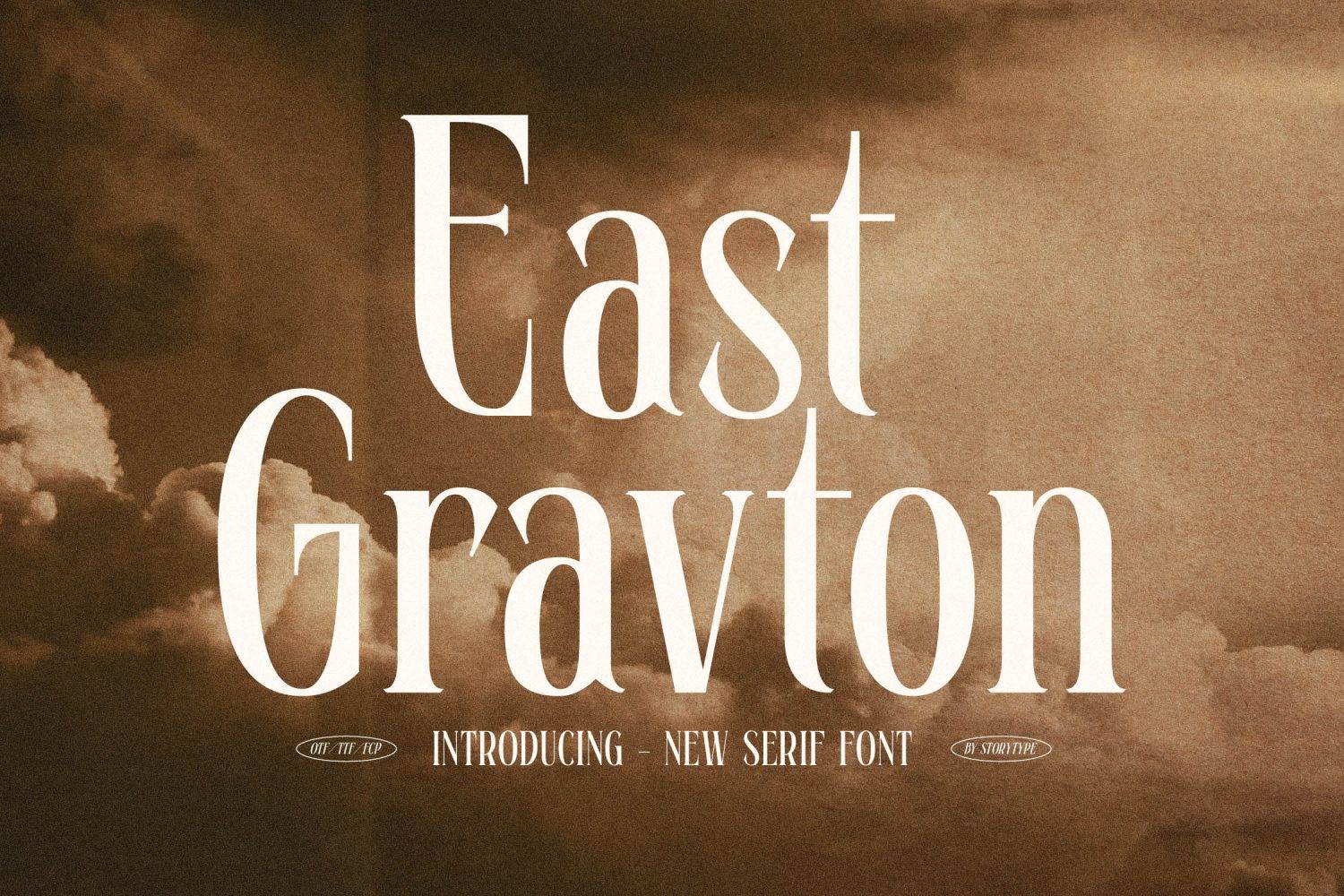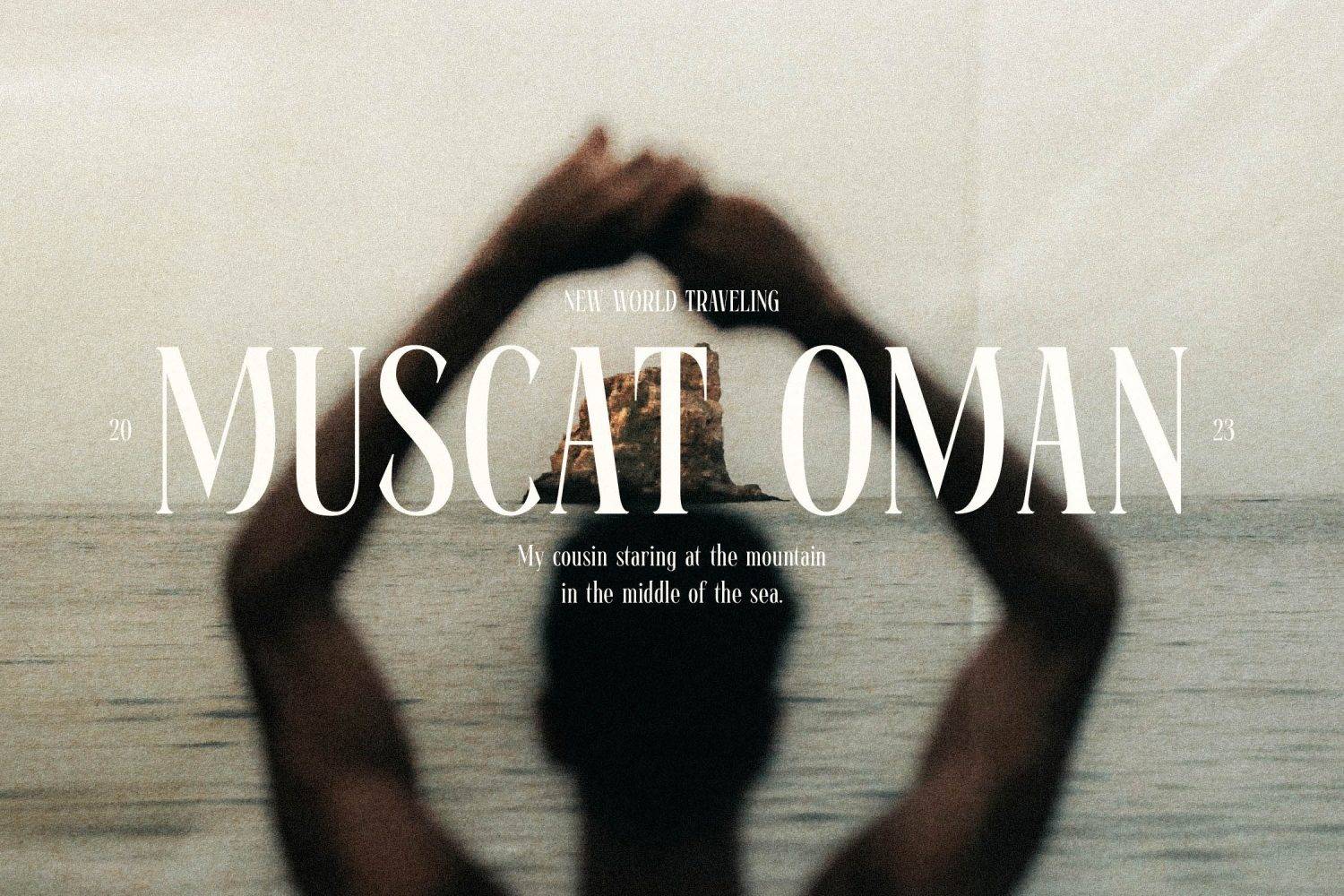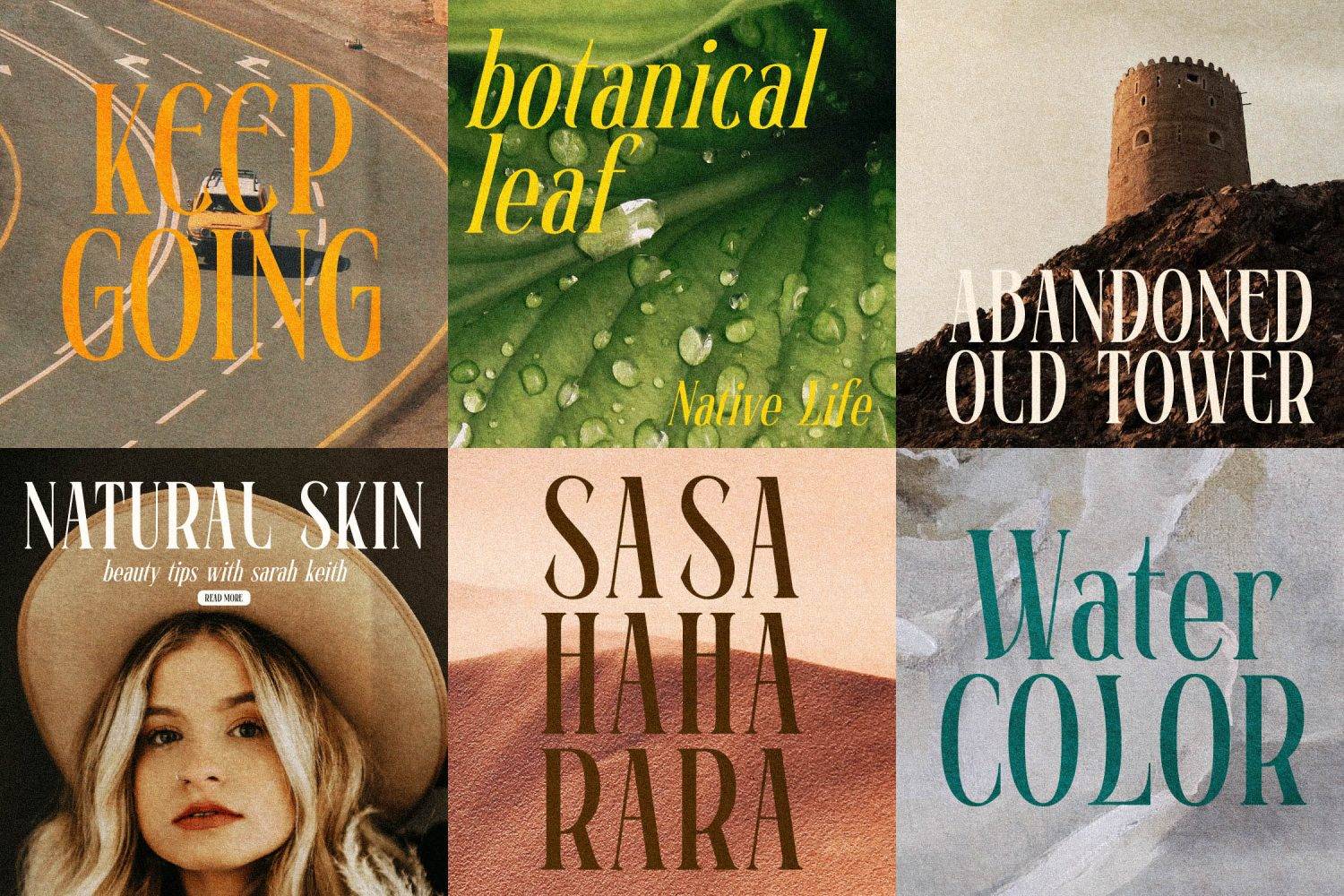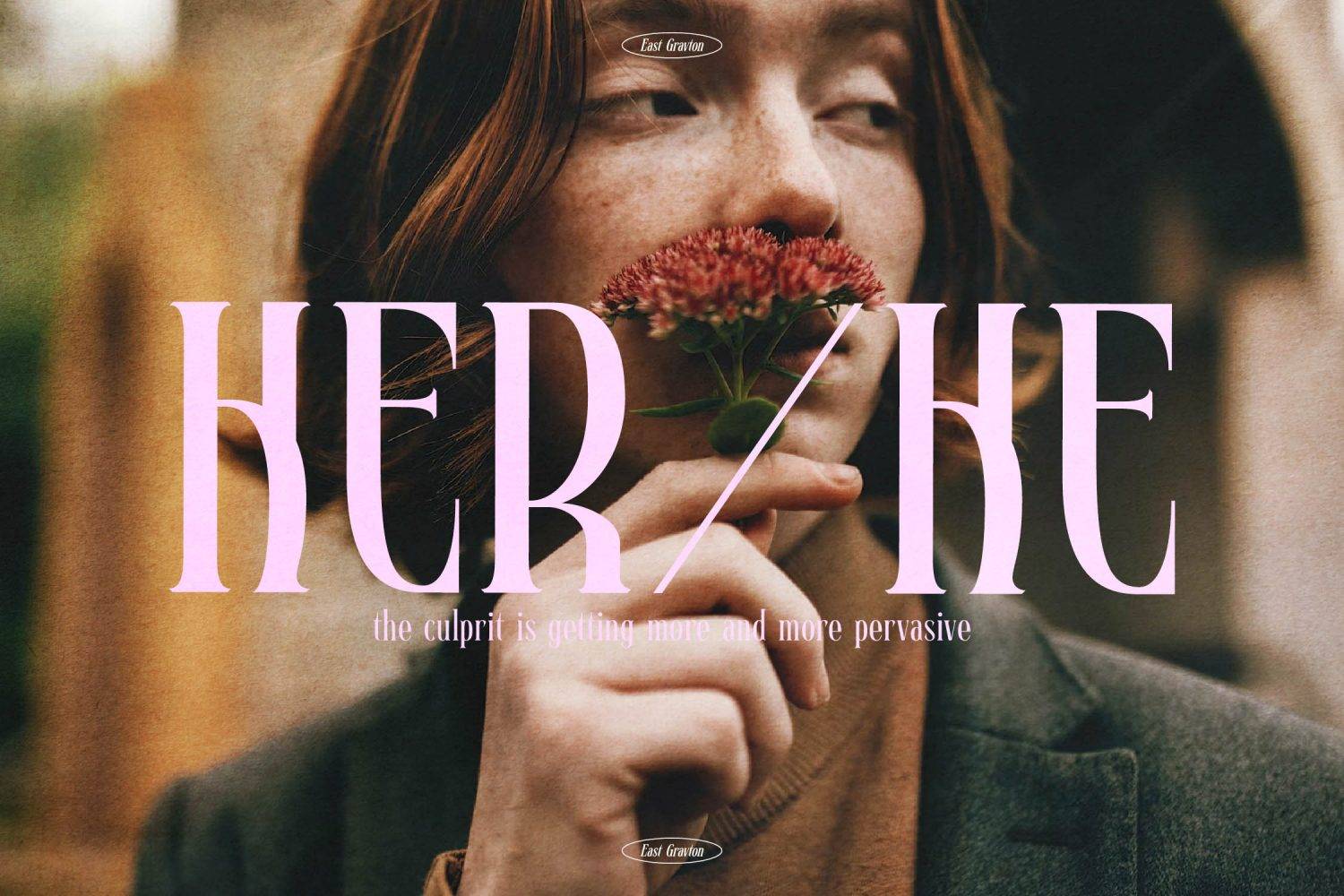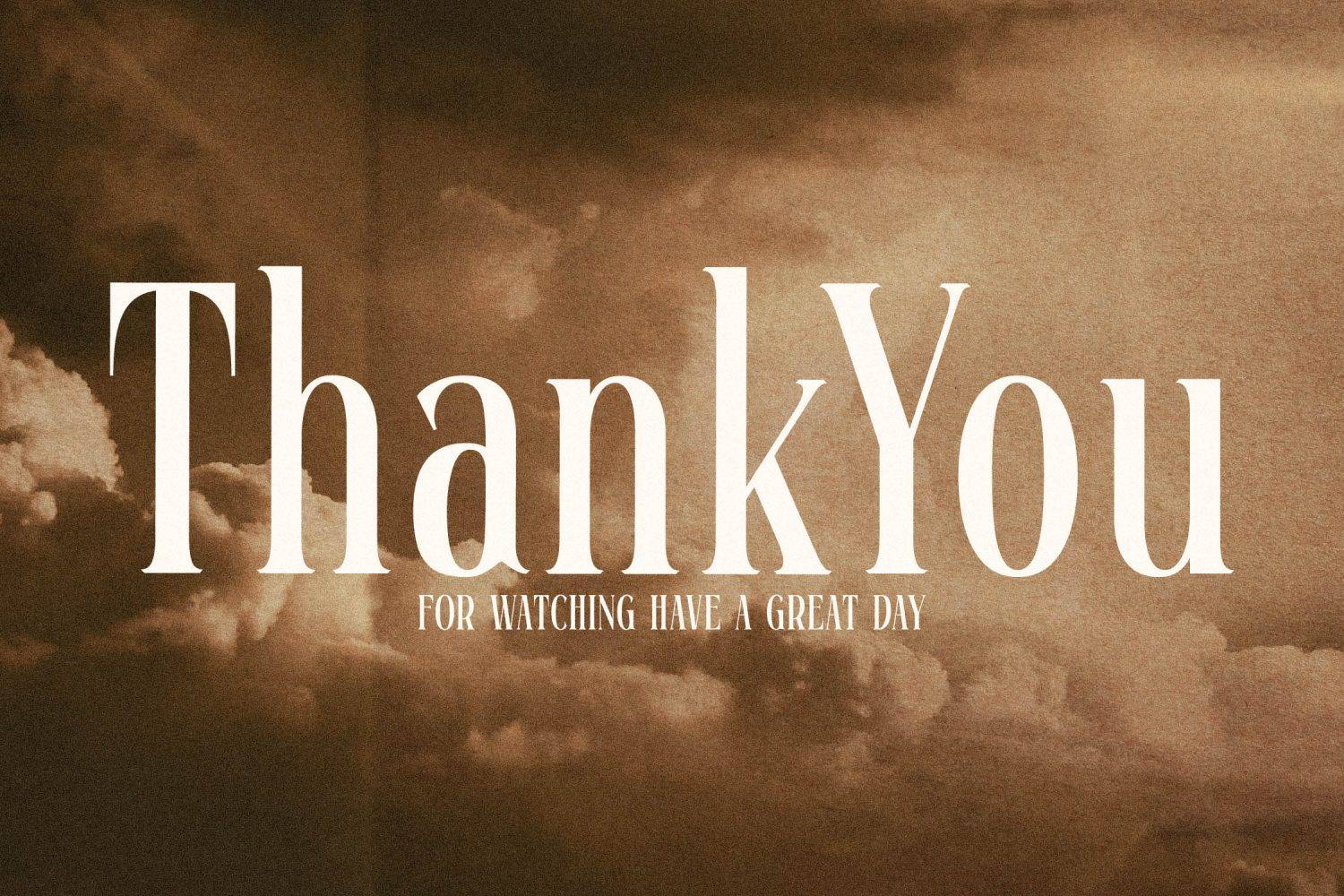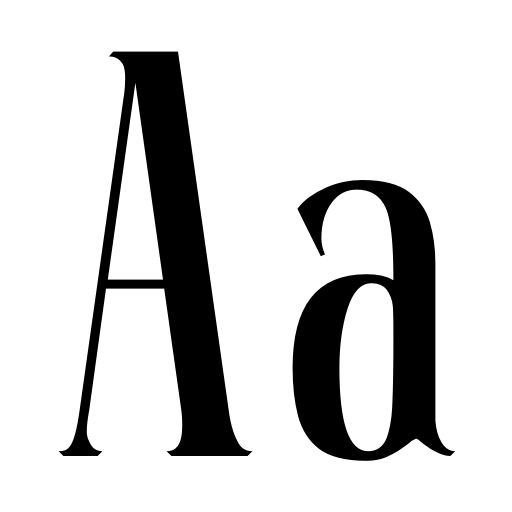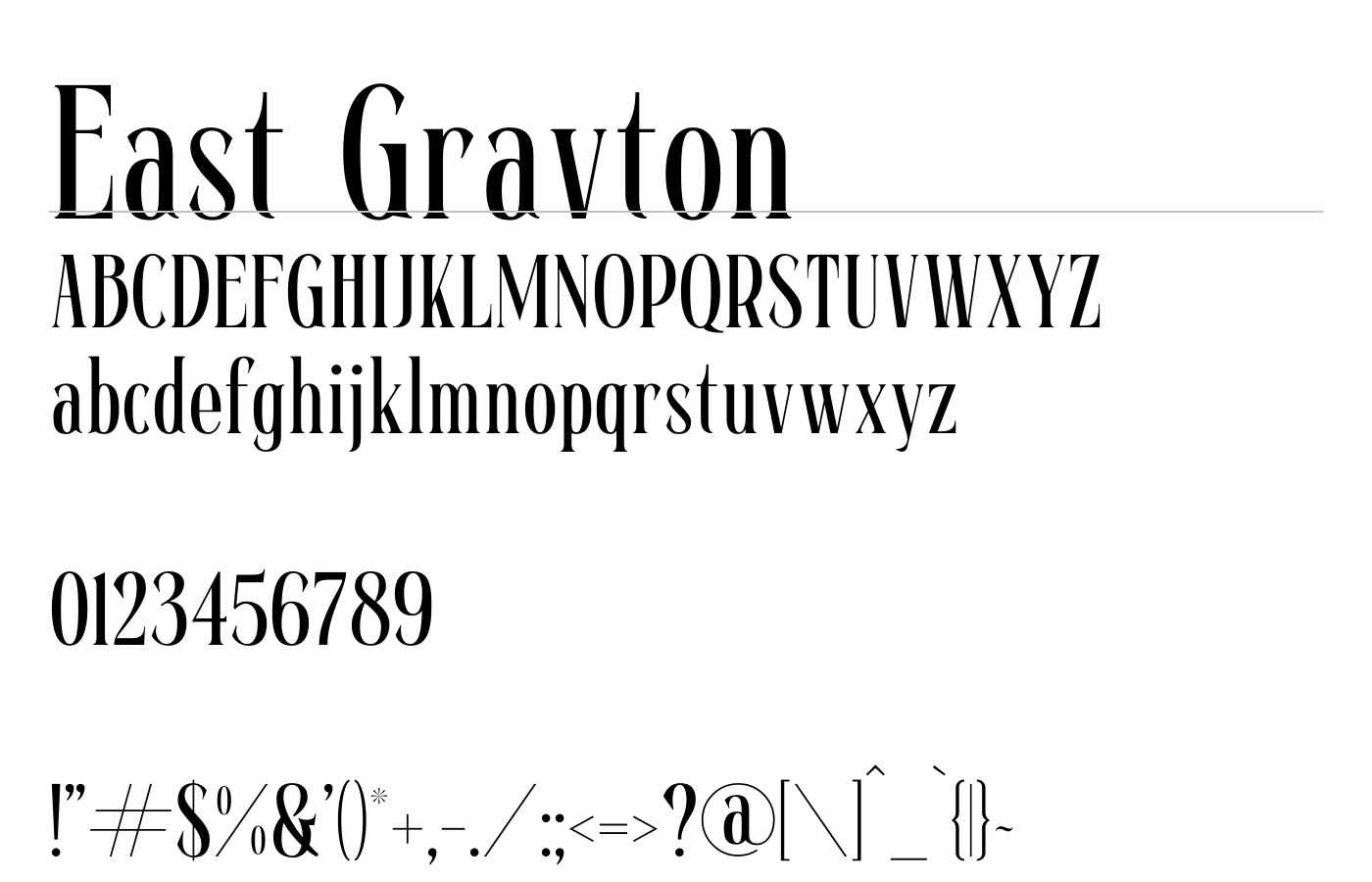
East Gravton is an elegant serif font featuring tall, narrow letterforms with high contrast between thick and thin strokes, creating a sophisticated and refined look. Its sharp serifs and slender proportions make it perfect for fashion branding, editorial headlines, and luxury packaging where a stylish, modern yet classic vibe is desired. This font stands out in upscale design contexts that require a striking, graceful presence.
East Gravton Font
About East Gravton Font